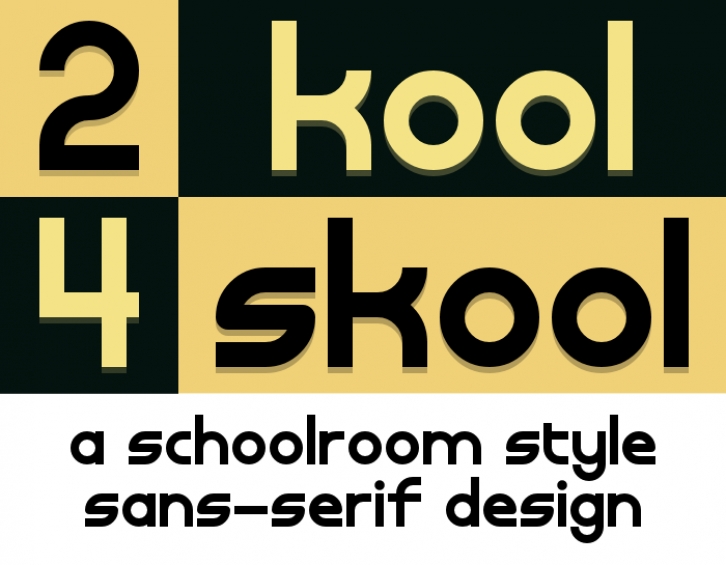
A schoolroom-esque design. It slightly reminds me of a font style which was once commonly used on magnetic letters.
Supports Danish, Dutch, English, Finnish, French, German, Hungarian, Icelandic, Italian, Latvian, Lithuanian, Norwegian, Polish, Portuguese, Spanish and Swedish!